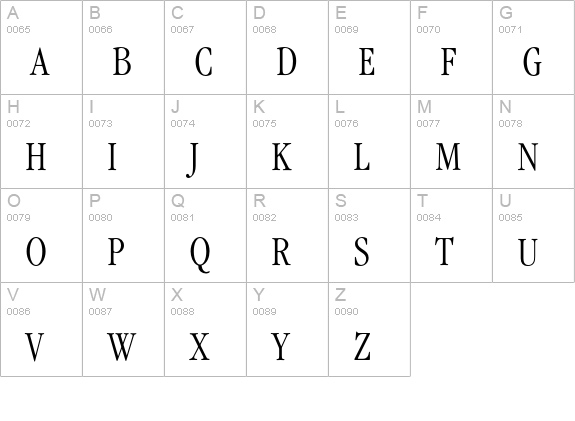
GaramondEF-LightCondensed is a timeless and elegant font that exudes sophistication and refinement. Its slender and condensed design lends a sense of modernity while retaining the classic appeal of the Garamond family. With its delicate letterforms and balanced proportions, this font effortlessly captures attention and adds a touch of elegance to any design project. This font's light weight enhances its versatility, making it suitable for a wide range of applications, from editorial layouts to branding materials, packaging, and more. Its legibility remains exceptional even at smaller sizes, ensuring that your message is always conveyed with clarity and style. One of the most remarkable features of GaramondEF-LightCondensed is its availability as a free download on FontsMarket.com. This allows designers, enthusiasts, and typographers to access and enjoy this exquisite font without any cost. Whether you are a professional designer or someone with a passion for typography, the convenience of freely acquiring GaramondEF-LightCondensed makes it a valuable addition to your font library. The attention to detail and craftsmanship in creating GaramondEF-LightCondensed is evident in every character. Each curve and stroke is meticulously crafted, resulting in a font that is not only visually appealing but also displays a harmonious balance between its elements. The subtle serifs and refined letterforms give this font a timeless quality that will stand the test of time. In summary, GaramondEF-LightCondensed is a beautiful and versatile font that combines modernity with classic elegance. Its freely available download at FontsMarket.com allows for easy access to this remarkable typeface, making it an excellent choice for designers and typographers alike. With its exceptional legibility and timeless appeal, GaramondEF-LightCondensed is sure to elevate any design project to new heights of sophistication and style.